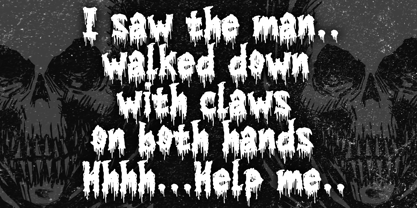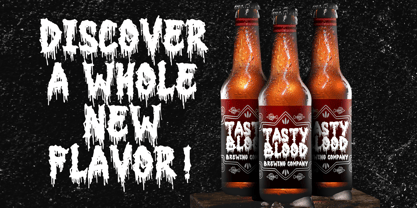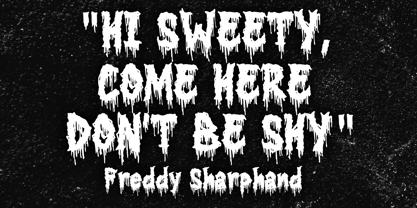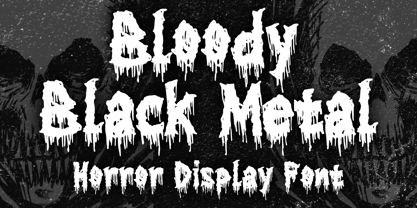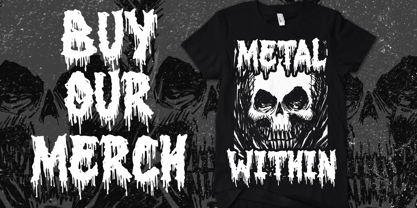
Bloody Black Metal
The Bloody Black Metal Font Family was designed by Gabriel Valentinus and published by Mvmet. Bloody Black Metal contains 1 styles. More about this family
Immerse yourself in the eerie appeal of Bloody Black Metal, an extraordinary font that captures the essence of classic horror cinema and the angst of Metal music. Featuring chilling ink drips, this font is the ideal choice for all your terror-inducing and Halloween-themed projects. Whether for garment design, book embellishments, or setting the mood for your spine-tingling Halloween party, Bloody Black Metal excels in versatility. Perfect for crafting greeting cards, stickers, promotional posters, banners, or any item that craves a touch of horror, Bloody Black Metal delivers a captivating blend of fright and fascination, making it a standout choice for branding, web design, and editorial use.
Mvmet is an Indonesia-based font studio which began making fonts in early 2020. Mvmet strives to make fonts fun and accessible for both the average computer user and professional designers, with original experimental fonts and affordable trend-setting commercial fonts. Mvmet also creates custom fonts for companies who want exclusive rights and a specific design for a typeface. Clients who have used Mvmet’s custom font services include some company in Indonesia and abroad.